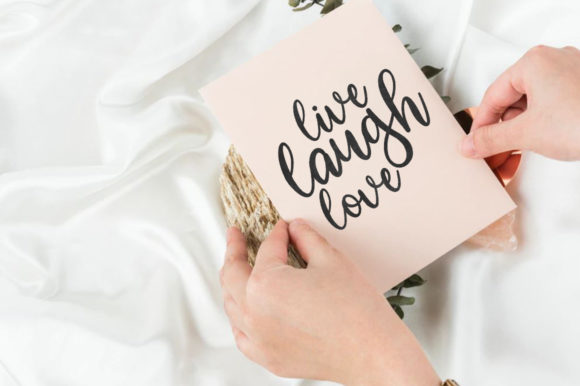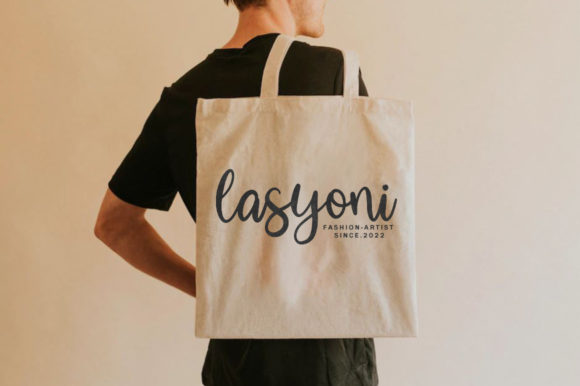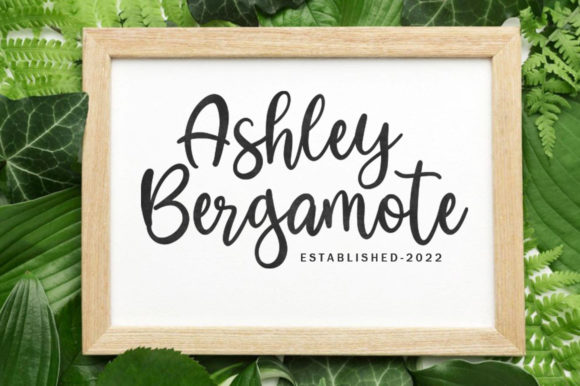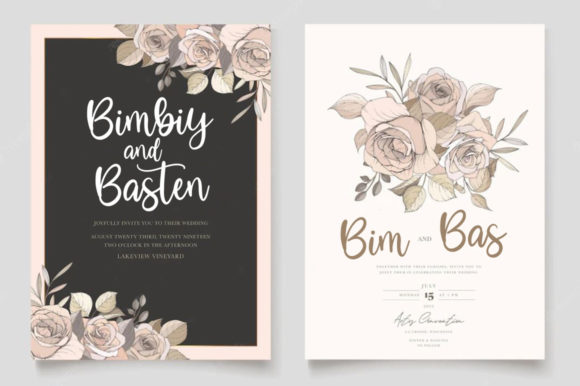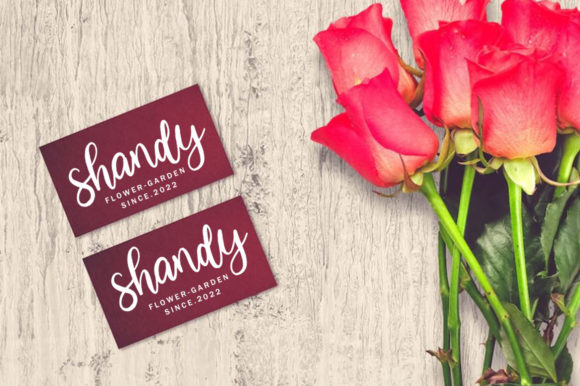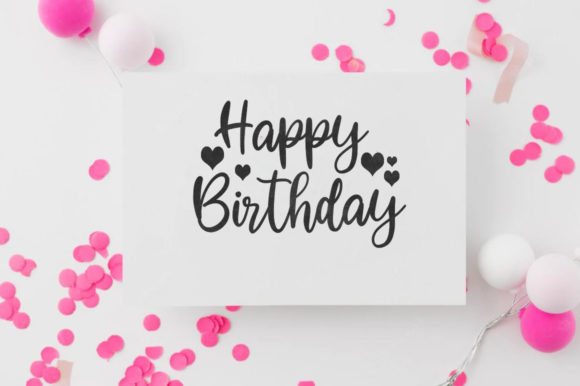
The Perfect Brush Stroke: Introducing Blitanos Font
Have you ever been stuck in front of your computer, staring blankly at a blank canvas, waiting for inspiration to strike? For many designers, it’s that one spark of creativity that sets the wheels in motion. For me, it was the feeling of holding a paintbrush in my hand, the gentle dance of strokes across the page, and the thrill of watching a beautiful piece of art come to life.
That’s where Blitanos Font comes in – a hand-brushed handwritten font designed to capture the essence of that creative moment. With its bold and irregular baseline, this font is perfect for adding a personal touch to your designs. Whether you’re working on a watercolor-inspired poster or a whimsical wedding invitation, Blitanos Font is the perfect companion to bring your vision to life.
Key Features of Blitanos Font
- Font Family: Blitanos
- Unique Characteristics: The Blitanos font features a unique blend of modern and vintage elements, with a distinctive irregularity in letterforms and a subtle texture that adds to its charm.
Blitanos Font Review
Overall, I was impressed with the Blitanos font. It has a unique and quirky vibe that can add a lot of character to your designs ✨. The font’s bold lines and playful curves make it perfect for titles, headings, and even some body text.
- The font’s bold weight is incredibly striking and can make a big impact in designs ✨
- The curly details in the font add a touch of whimsy and make it feel more dynamic ✨
- The font is highly legible, even at smaller sizes, which is a big plus ✨
- The font may be too bold or overwhelming for some designs ⚠️
- The curly details can make it difficult to read at very small sizes ⚠️
- The font may not be suitable for professional or formal designs ⚠️
Overall, I think the Blitanos font is a great addition to any designer’s toolkit. While it may have some limitations, its unique style and bold personality make it a great choice for creative projects or designs where you want to make a statement.
Blitanos Font is ideal for:
- Creating bold and modern headlines.
- Designing logos and branding materials.
- Adding a touch of sophistication to your digital content.
Remember to use the font in moderation and balance it with other design elements to avoid overwhelming the viewer.